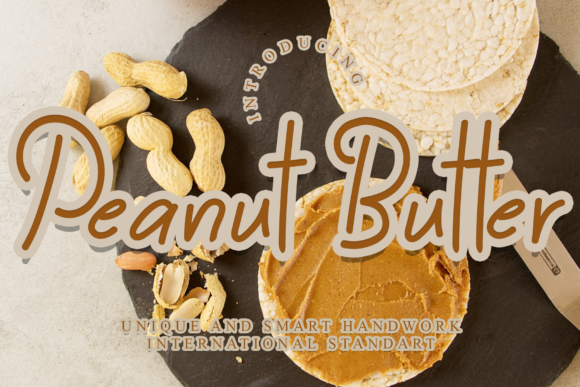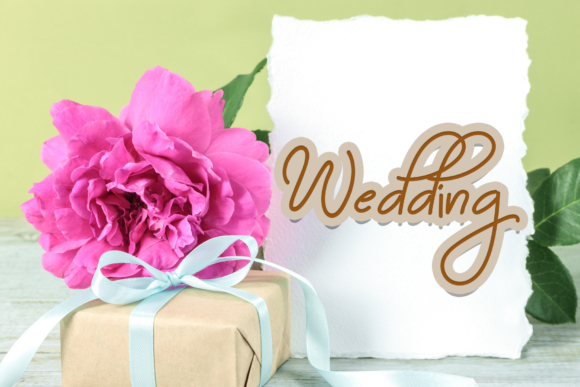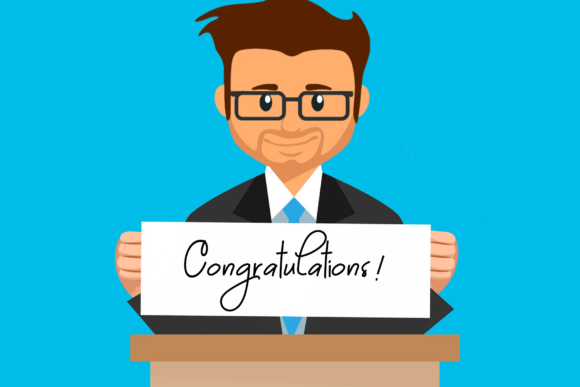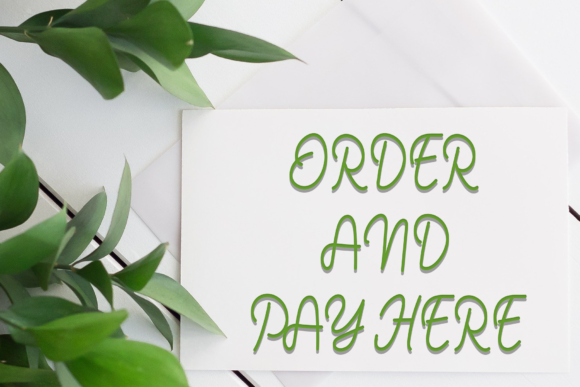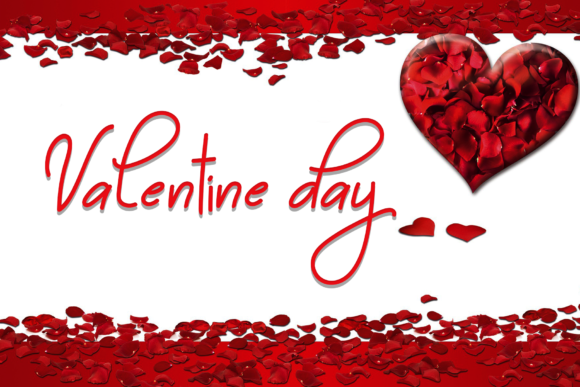
Peanut Butter Font
About Peanut Butter Font
Peanut Butter is an elegant handwritten font, that features a very delicate and classy look. Not too thin and not too thick, balanced and varied, this font was designed to enhance the beauty of your projects.